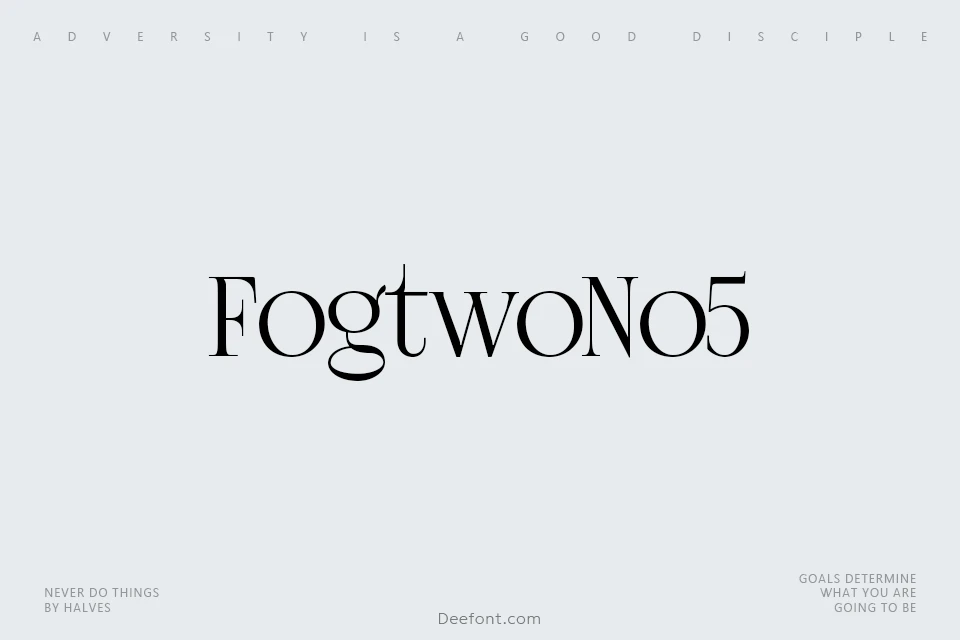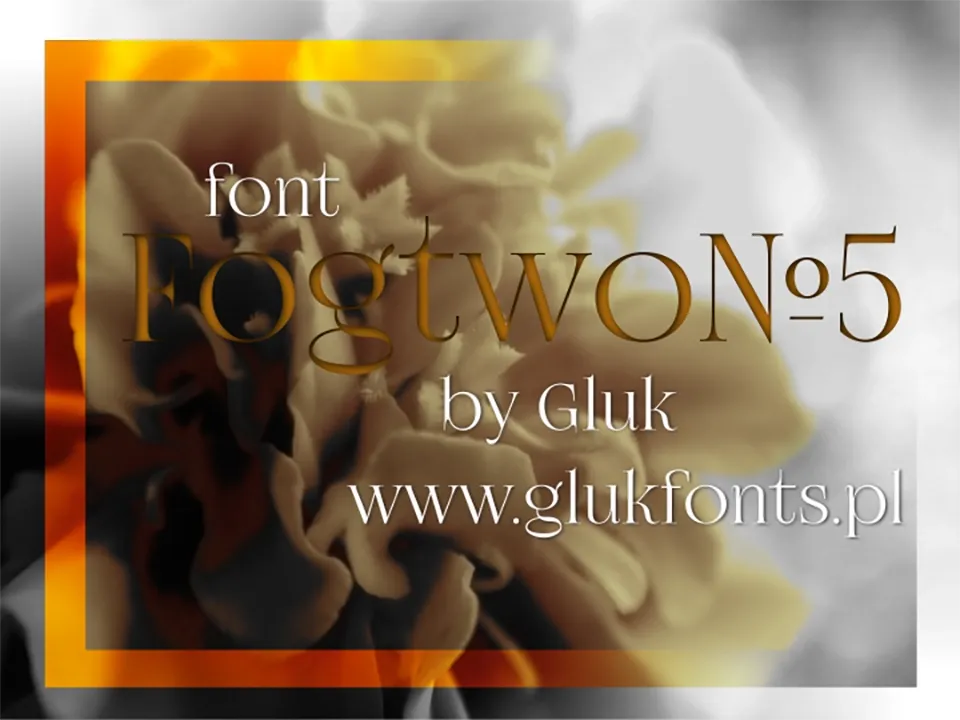
Fogtwo No5 Font
Fogtwo No5 is a versatile display serif font created by designer Grzegorz Luk (gluk). Part of the Fogtwo font family, it offers adaptability, fitting designs ranging from elegant to brutalist. It excels in applications requiring larger text sizes, such as headlines, posters, and titling. Fogtwo No5 provides extensive language support, including a full Latin Extended character set. Available in a Regular style, the font is distributed under the SIL Open Font License, making it free for both personal and commercial use.